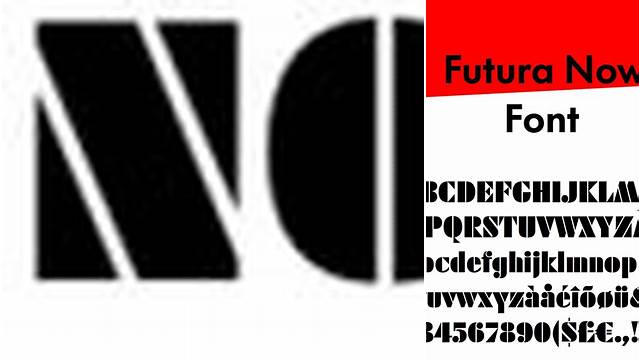
Hey guys! Ever wanted that sleek, futuristic vibe in your designs? The Futura Now Stencil font might just be your new best friend. This font is a modern take on a classic, perfect for adding a touch of boldness and sophistication to any project. But finding it for free? That’s the real quest. So, let's dive into everything you need to know about the Futura Now Stencil font and how to potentially snag it without breaking the bank. We'll explore what makes this font so special, where you might find it, and even some alternatives if the free download proves elusive. Get ready to level up your typography game!
Futura Now Stencil: What Makes It Special?
Futura Now Stencil isn’t just another font; it's a statement. Its geometric design, clean lines, and stenciled breaks give it a unique, modern edge. The original Futura, designed by Paul Renner in 1927, was a groundbreaking typeface that embraced the Bauhaus aesthetic. Futura Now Stencil builds on this legacy, adding a contemporary twist that makes it perfect for everything from logos to posters. This font exudes confidence and modernity, making it a favorite among designers who want to convey a sense of innovation and style. Using Futura Now Stencil can instantly elevate your design, giving it a professional and polished look. The stencil effect adds a layer of visual interest, making your text stand out from the crowd. If you are looking for a font that speaks volumes without saying too much, Futura Now Stencil is your answer. Its versatility allows it to be used in various contexts, from digital designs to print materials, making it a valuable asset in any designer's toolkit.
The History and Evolution of Futura Font
The history of the Futura font is a fascinating journey through the evolution of typography itself. Created by Paul Renner in 1927, Futura was a radical departure from the serif typefaces that dominated the era. Renner, inspired by the Bauhaus movement's emphasis on functionality and geometric forms, set out to create a typeface that was both modern and timeless. The result was Futura, a font characterized by its clean lines, perfect circles, and near-even strokes. Its minimalist design made it an instant hit, and it quickly became one of the most popular fonts of the 20th century. Futura's influence can be seen in countless designs, from corporate logos to movie posters. Over the years, Futura has undergone several revivals and adaptations, including the Futura Now family, which aims to modernize the classic typeface for the digital age. The stencil version, Futura Now Stencil, adds a unique twist to the original design, incorporating breaks and gaps that create a striking visual effect. This evolution ensures that Futura remains relevant and continues to inspire designers today. Its enduring appeal is a testament to its elegant design and timeless quality.
Key Design Elements of Futura Now Stencil
The key design elements of Futura Now Stencil are what make it so distinctive and appealing. At its core, this font is built on geometric shapes, particularly the circle, which gives it a sense of balance and harmony. The strokes are clean and consistent, contributing to its minimalist aesthetic. The stencil breaks, which are the defining feature of this variation, add a layer of visual interest and complexity. These gaps create a sense of rhythm and texture, making the font stand out in any context. Futura Now Stencil maintains the legibility of the original Futura while adding a contemporary edge. The stenciled effect gives it a modern, industrial feel, perfect for designs that aim to convey strength and innovation. The font's overall structure is simple yet elegant, making it highly versatile and suitable for various applications. Whether used in headlines or body text, Futura Now Stencil commands attention and adds a touch of sophistication to any design. Its unique blend of classic geometry and modern flair makes it a true standout in the world of typography. Understanding these design elements helps designers leverage the font's strengths and create impactful visuals.
Mimicking the Stencil Effect in Other Fonts